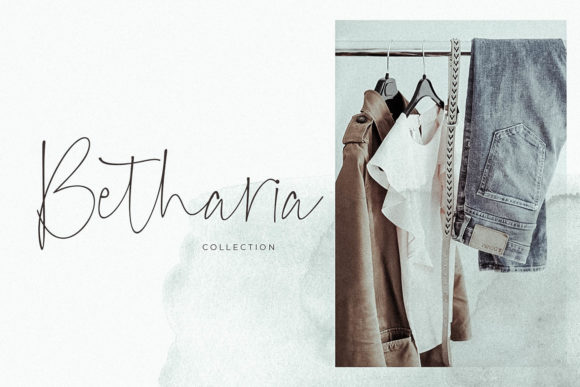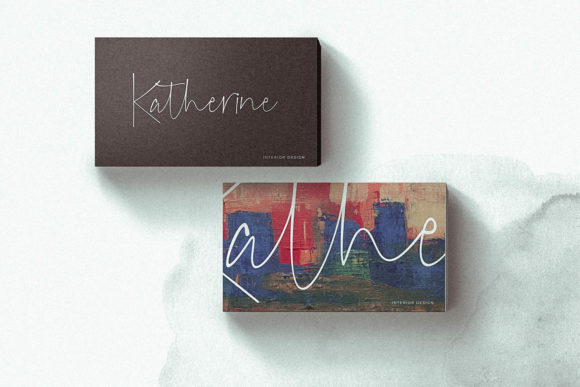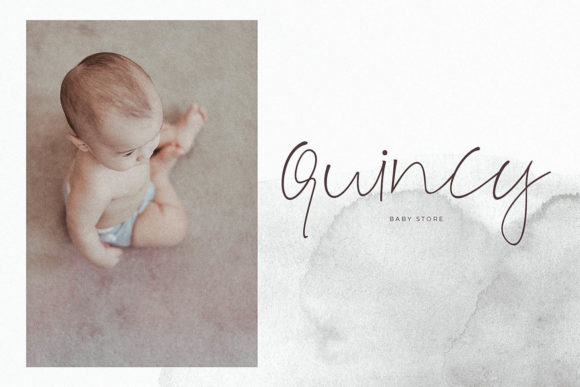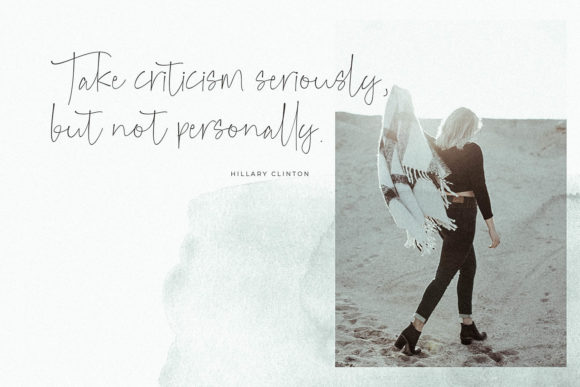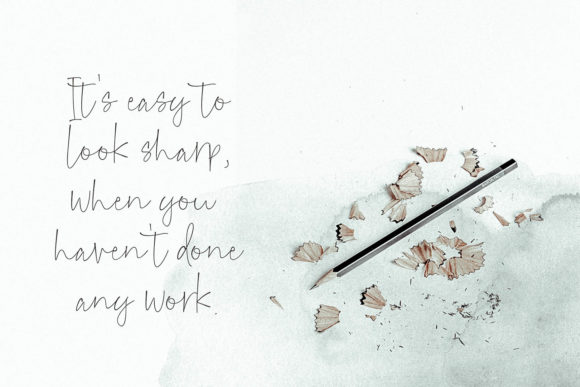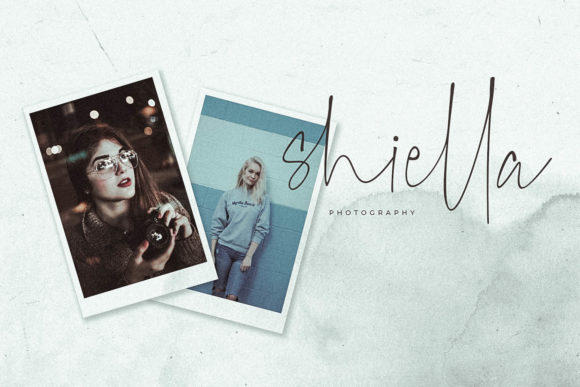
Introduction to Halimpu Font Font
Fonts play a crucial role in design, and the Halimpu Font font is a typeface that brings both character and versatility to any project. Whether you’re working on a branding project, a website, or a print design, the Halimpu Font font offers a unique style that can elevate your work.
Halimpu is a stunning handwritten font with an incredible feel.
Use it to add a cool and contemporary vibe to any design project .
Key Features of Halimpu Font Font
Why Choose Halimpu Font Font?
The Halimpu Font font is more than just a typeface – it’s a design tool that helps you communicate your message with style and clarity. Its unique character set and versatile design make it suitable for a wide range of applications, from elegant invitations to bold headlines.
With its carefully crafted letterforms and balanced proportions, the Halimpu Font font ensures readability and visual appeal across all mediums.
What makes Halimpu Font font special?
The Halimpu Font font stands out with its unique design, exceptional readability, and versatility across various design applications.